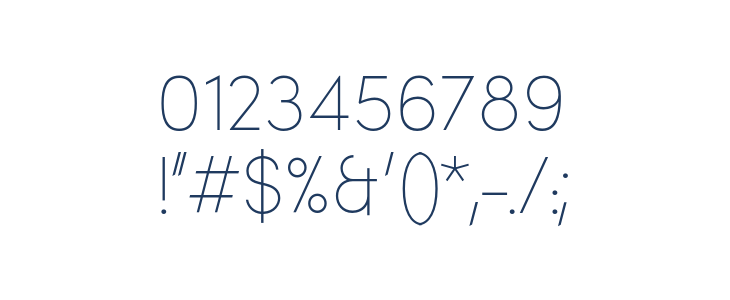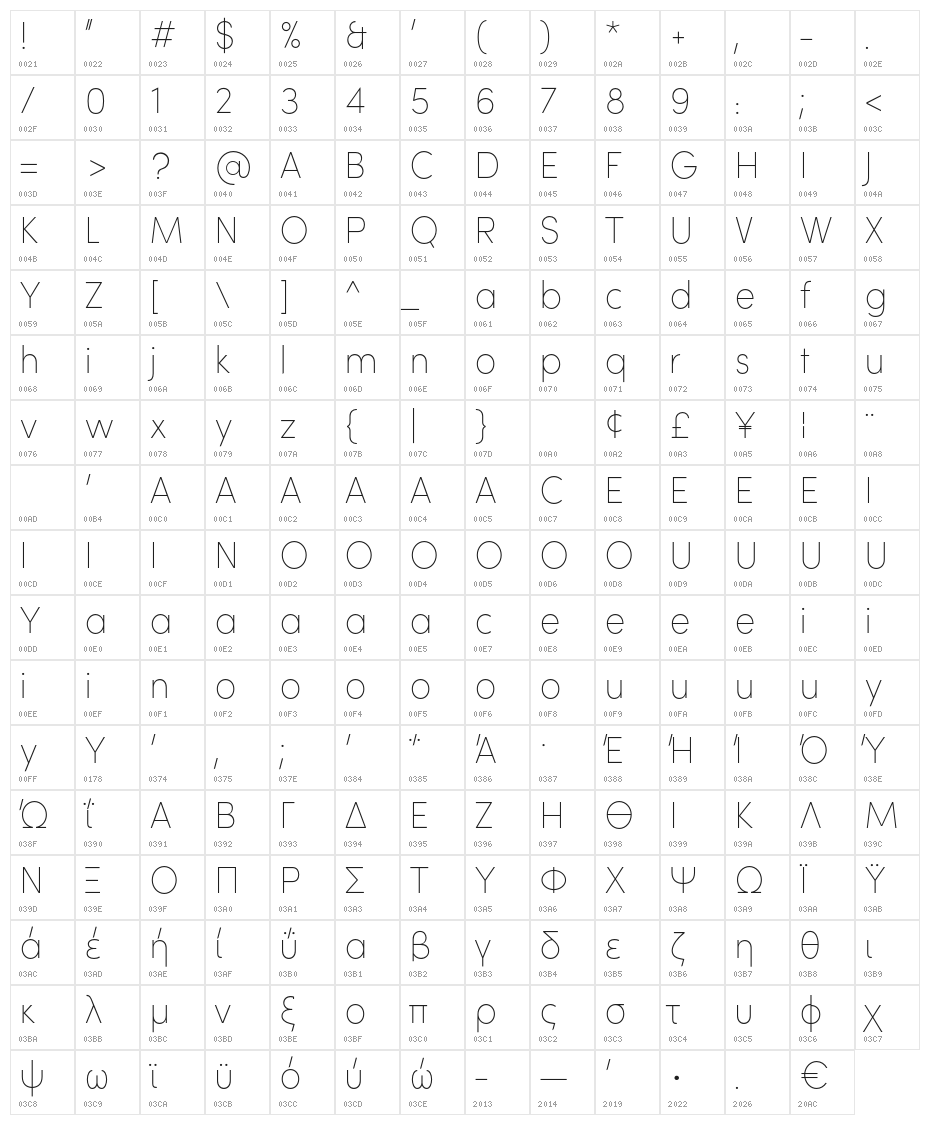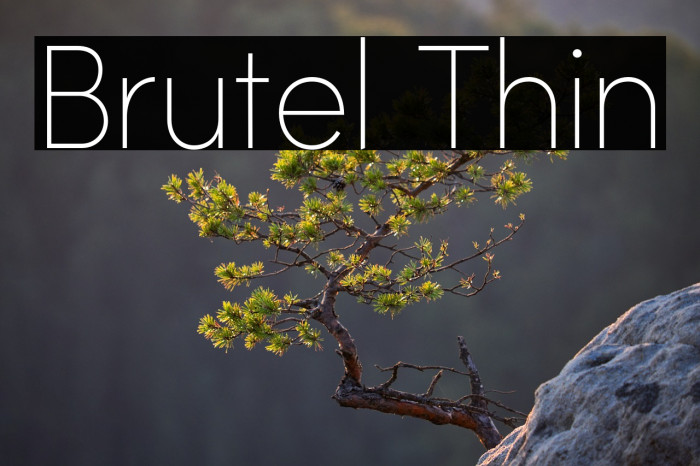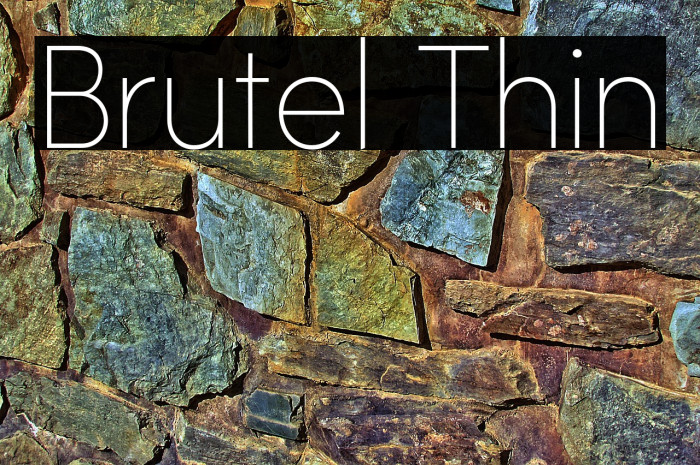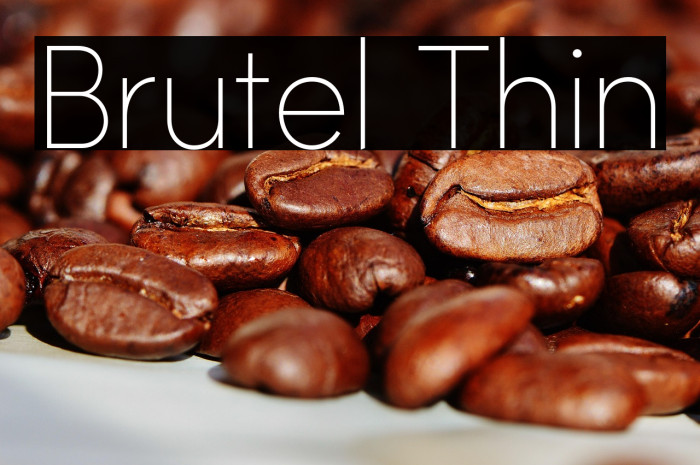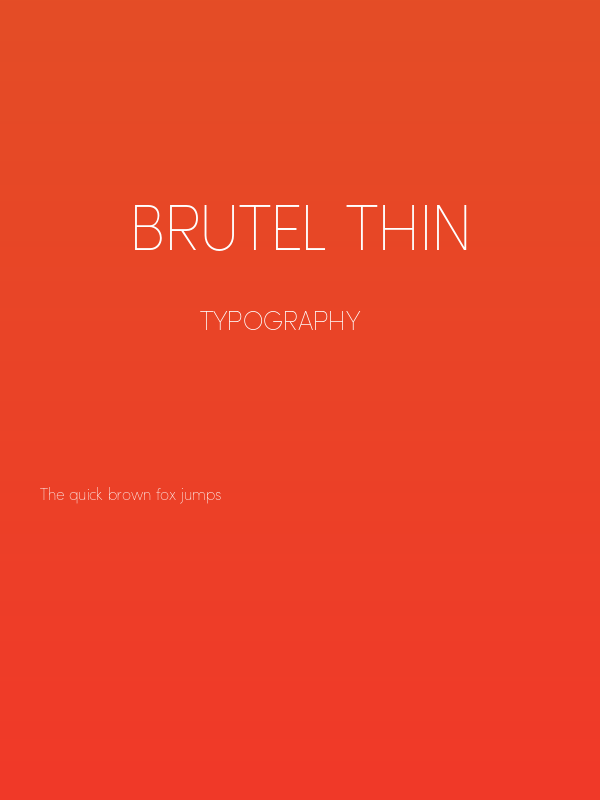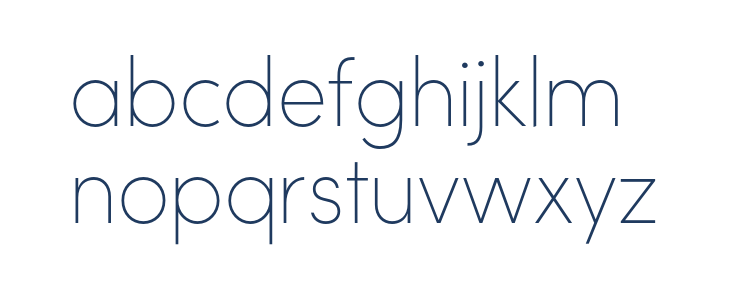
Brutel Thin Font
Brutel Thin Description
This font features a clean and minimalist design with a geometric structure. The characters are evenly spaced, providing a balanced and harmonious appearance. The thin strokes give it a modern and elegant feel, making it suitable for contemporary design projects. Its simplicity and clarity make it highly legible, even at smaller sizes. The uniform line weight across all characters contributes to its sleek and sophisticated look. This font is versatile, fitting well in both digital and print media, and can be used to convey a sense of professionalism and modernity.
| Proposed Projects | Ideal for branding, editorial design, websites, and corporate materials. |